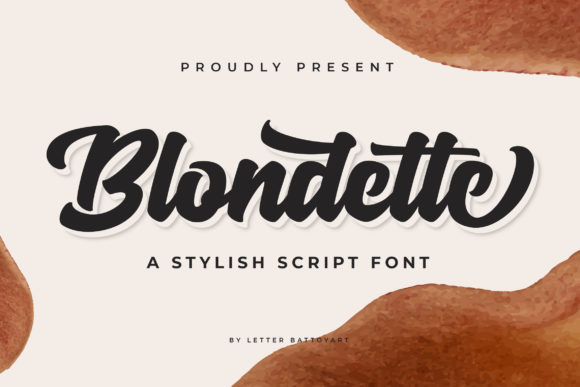
Introducing Blondette Font: Elevate Your Designs with a Retro Twist
Are you on the hunt for a font that adds a touch of nostalgia and glamour to your design projects? Look no further than Blondette Font, a stunning handwritten font that’s perfect for headlines, logotypes, and more. With its bold, cursive script and PUA encoding, Blondette is a versatile and user-friendly font that’s sure to become a favorite among designers and crafters.
The Charm of Blondette Font
Blondette Font is a gorgeous and bold handwritten font, crafted to give your designs a retro touch that’s reminiscent of classic 1950s and 60s typography. Its flowing script and elegant lettering make it perfect for creating eye-catching headlines, logotypes, and titles that demand attention. Whether you’re working on a branding project, packaging design, or social media graphics, Blondette Font is the perfect choice for adding a touch of sophistication and glamour.
What Sets Blondette Apart
So, what makes Blondette Font stand out from the crowd? For starters, its PUA (Private Use Area) encoding makes it incredibly easy to access all of the amazing glyphs and ligatures included in the font. This means you can create stunning, one-of-a-kind designs without needing to spend hours editing and customizing your text. Plus, Blondette’s bold and cursive script is expertly crafted to ensure that your text is always legible and visually appealing.
Here are just a few of the key features and benefits that make Blondette Font a must-have for designers and crafters:
- PUA Encoding: Easily access all glyphs and ligatures for effortless design customization
- Bold and Cursive Script: Create stunning headlines and logotypes with a retro twist
- Retro-Inspired: Add a touch of nostalgia and glamour to your designs
- Legible and Versatile: Perfect for a wide range of design projects, from branding and packaging to social media and more
Design Inspiration with Blondette Font
Blondette Font is perfect for a wide range of design projects, from vintage-inspired branding and packaging to modern social media graphics and more. Here are a few design ideas to get you started:
- Vintage Branding: Create retro-inspired logos and branding materials that evoke a sense of nostalgia and glamour
- Wedding and Event Design: Use Blondette Font to create stunning wedding invitations, save-the-dates, and event graphics
- Packaging Design: Add a touch of elegance and sophistication to your product packaging with Blondette Font
- Social Media Graphics: Create eye-catching social media graphics and posts that showcase your brand’s personality and style
| Font Name | Blondette Font |
| Author | letter battoyart |